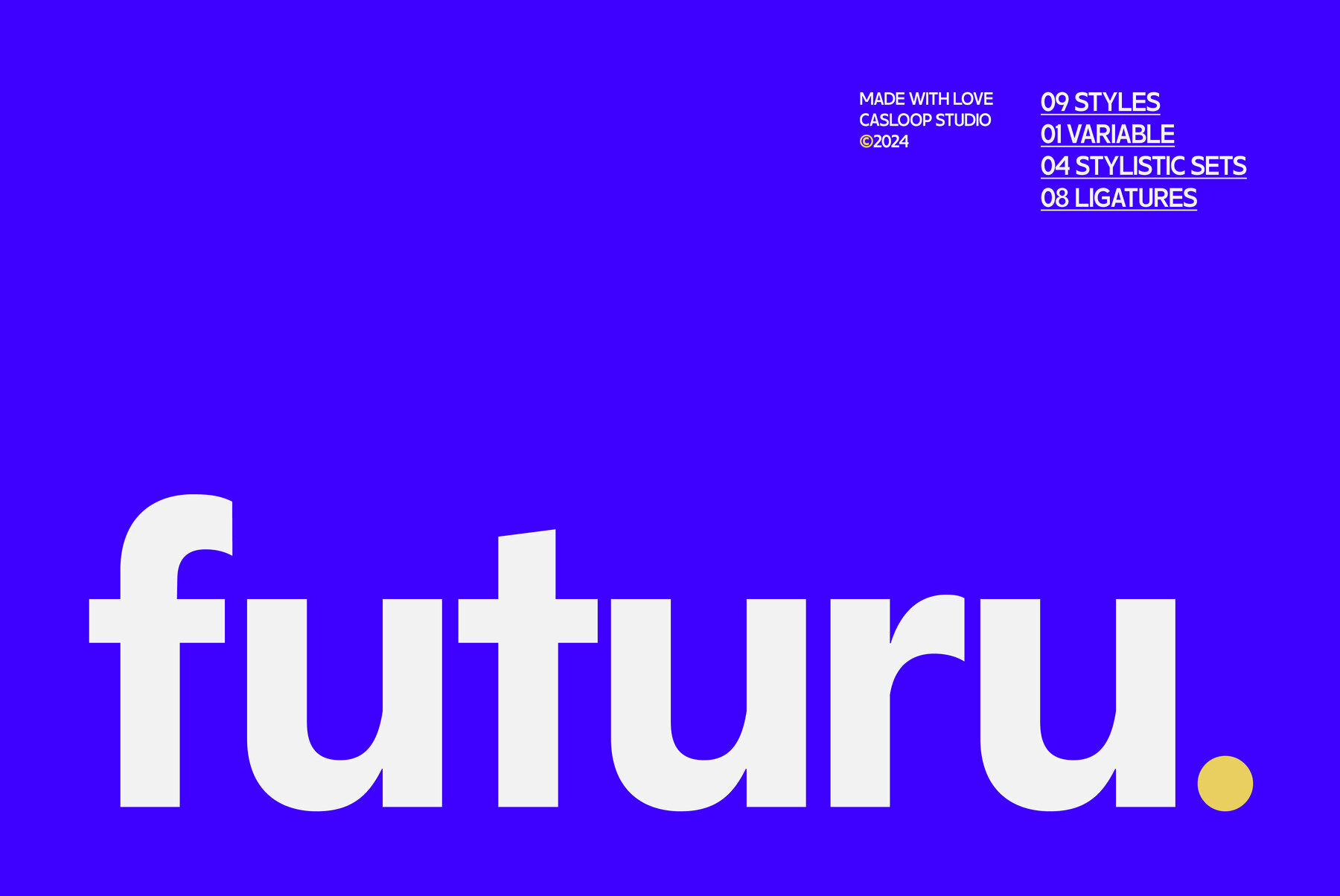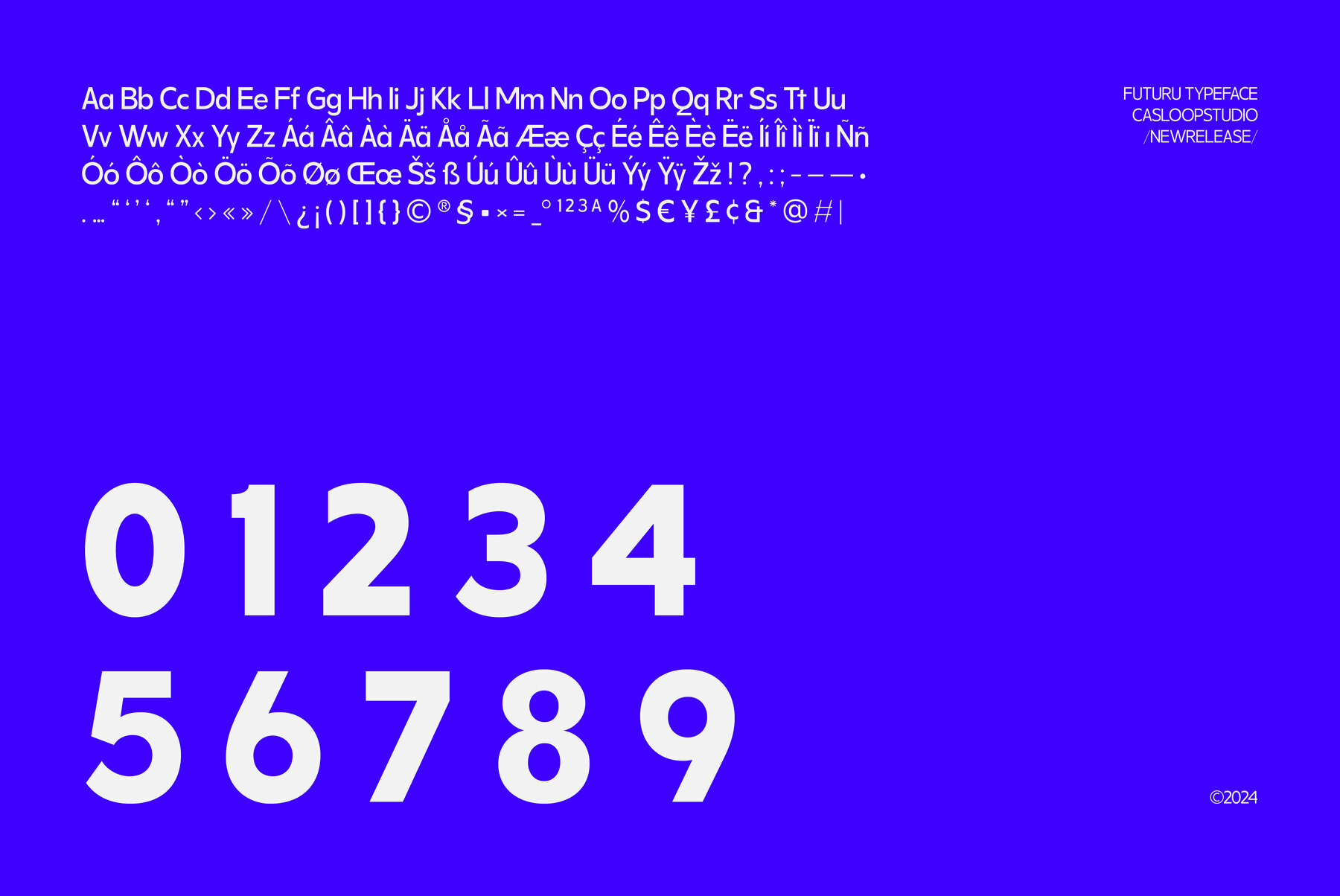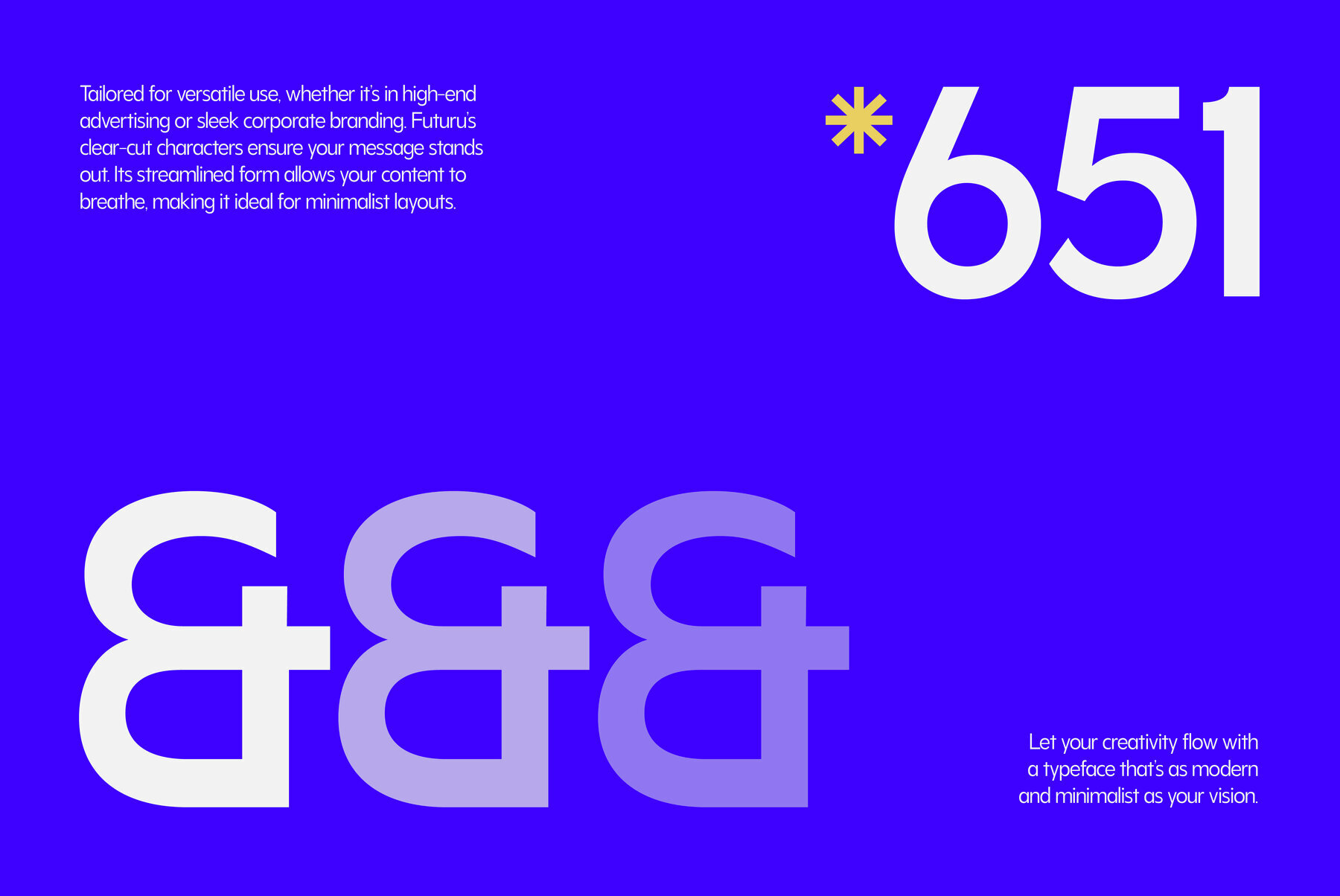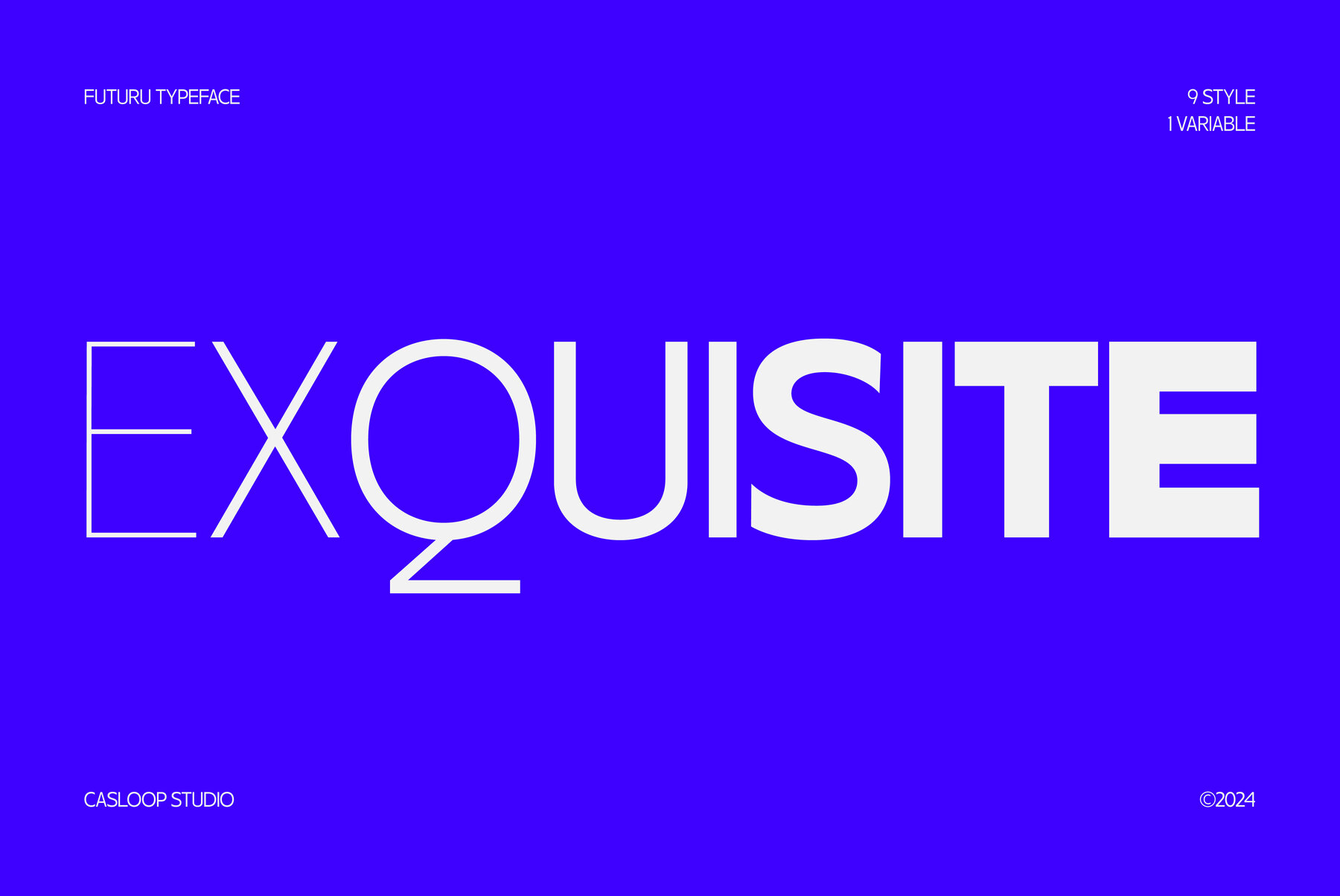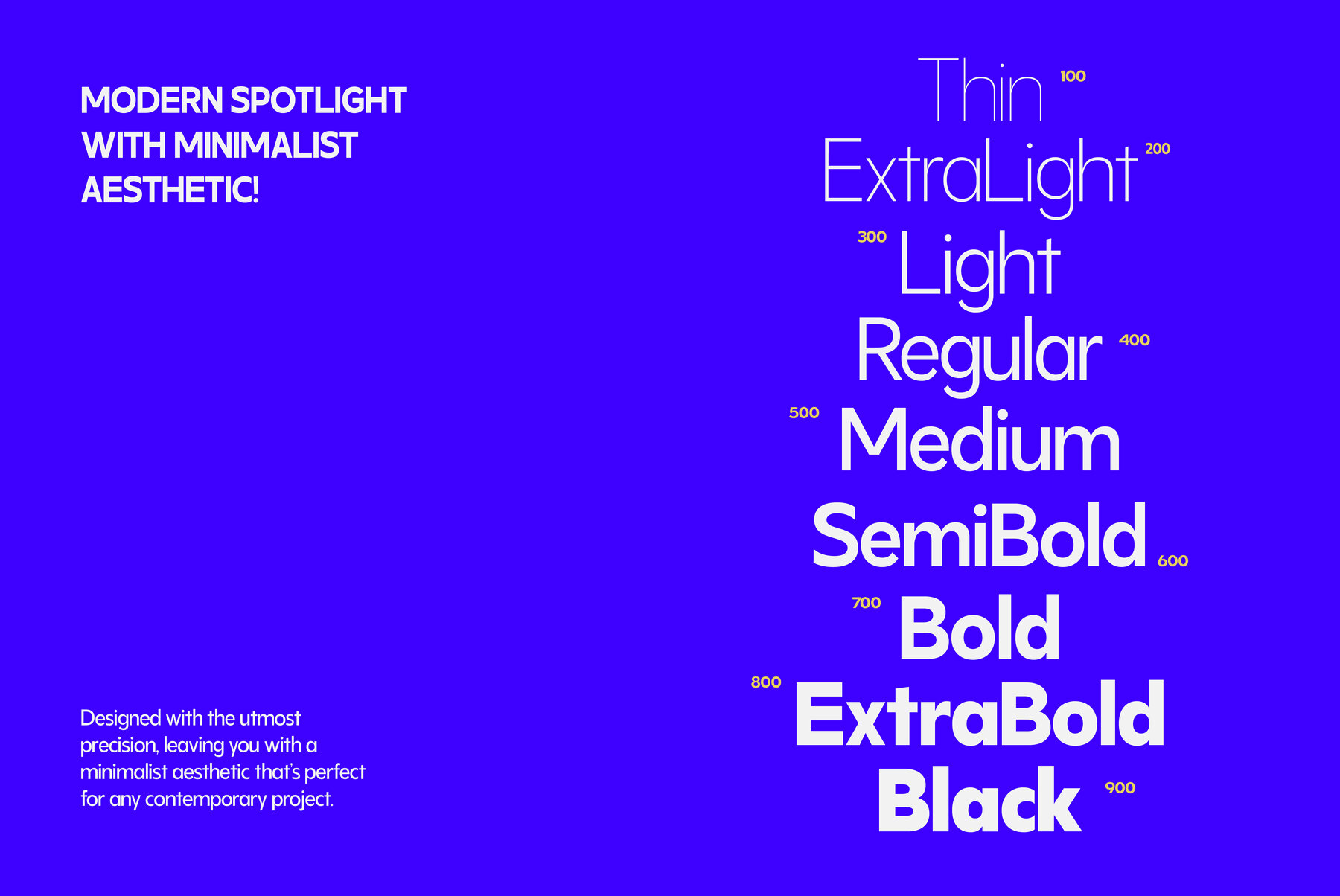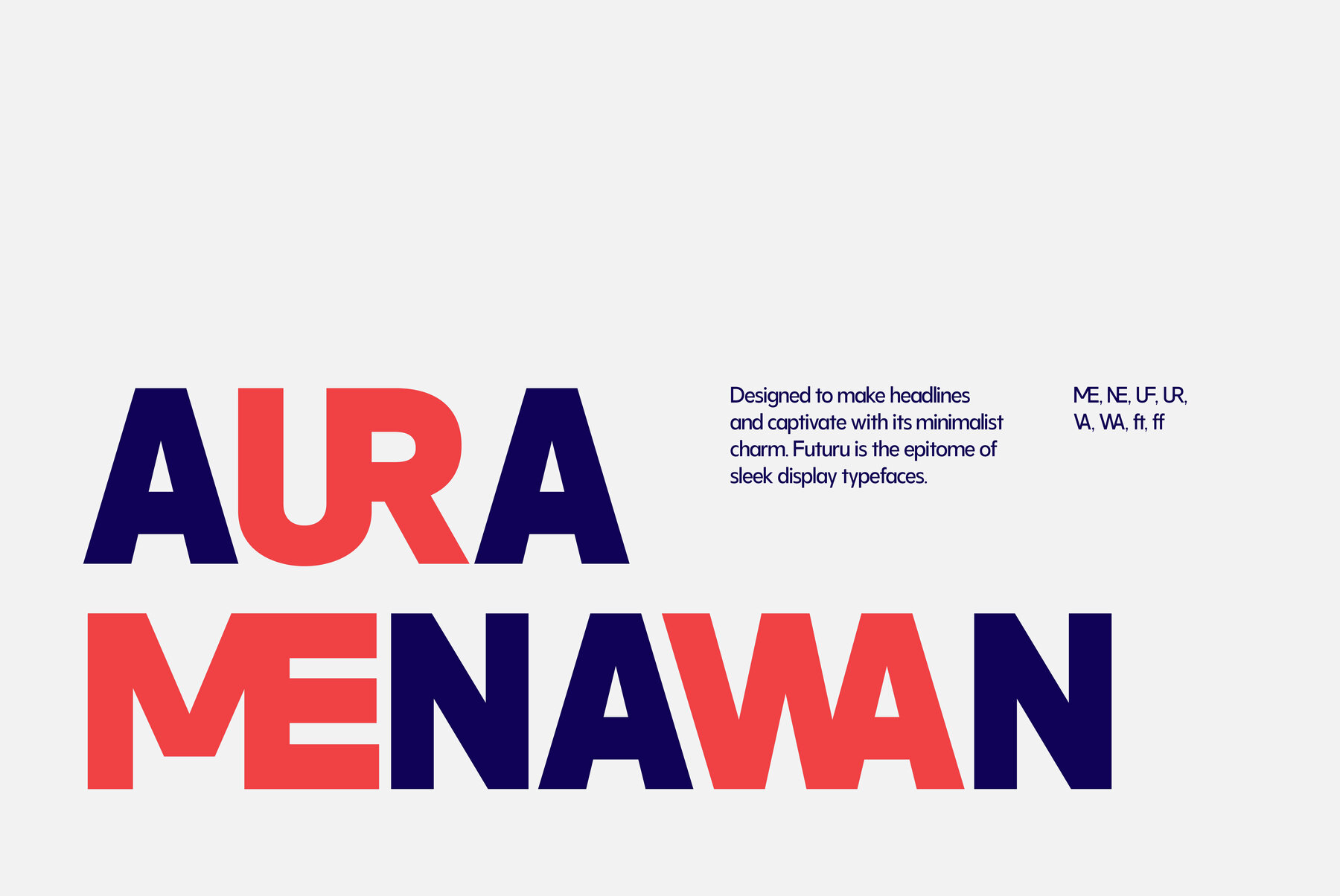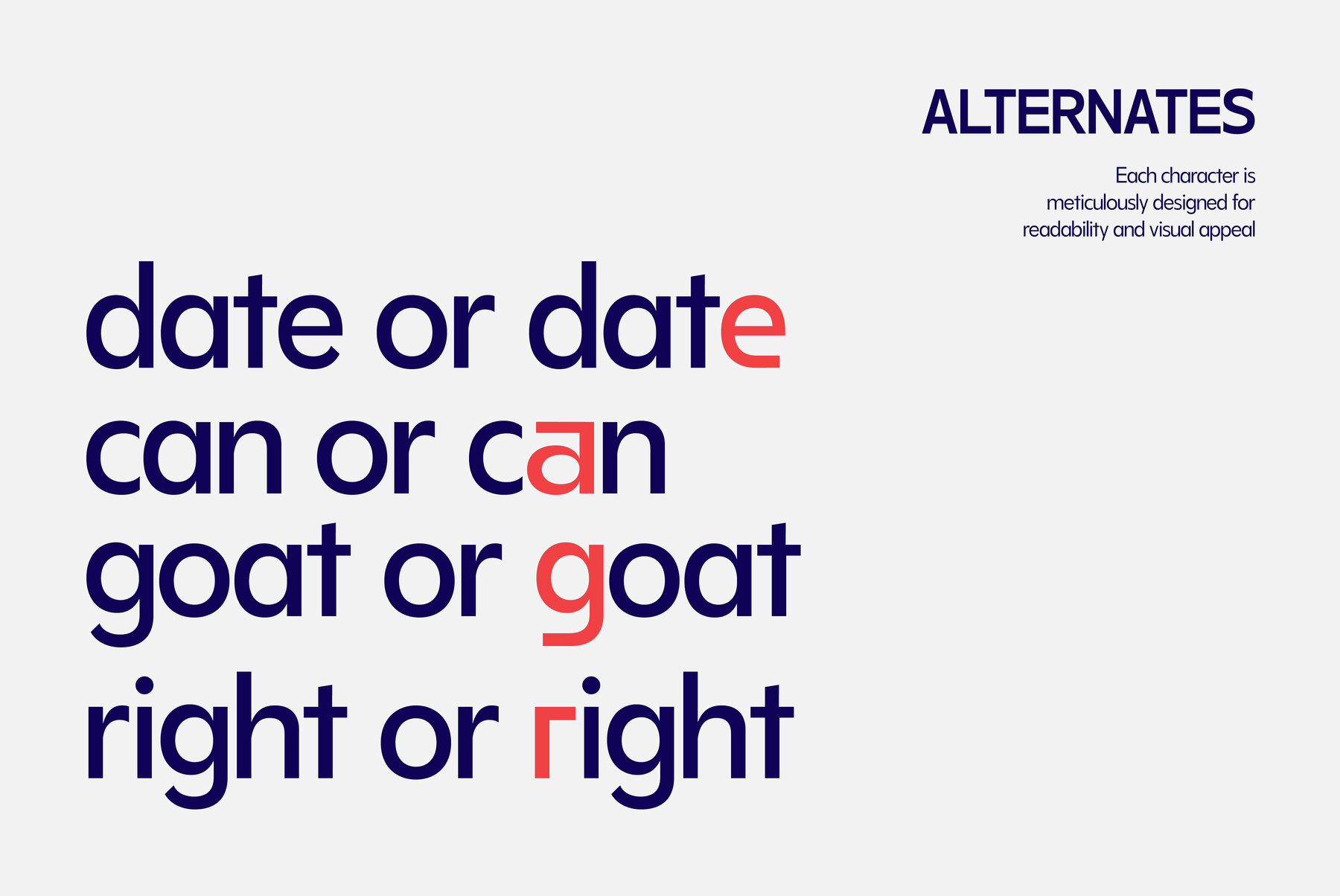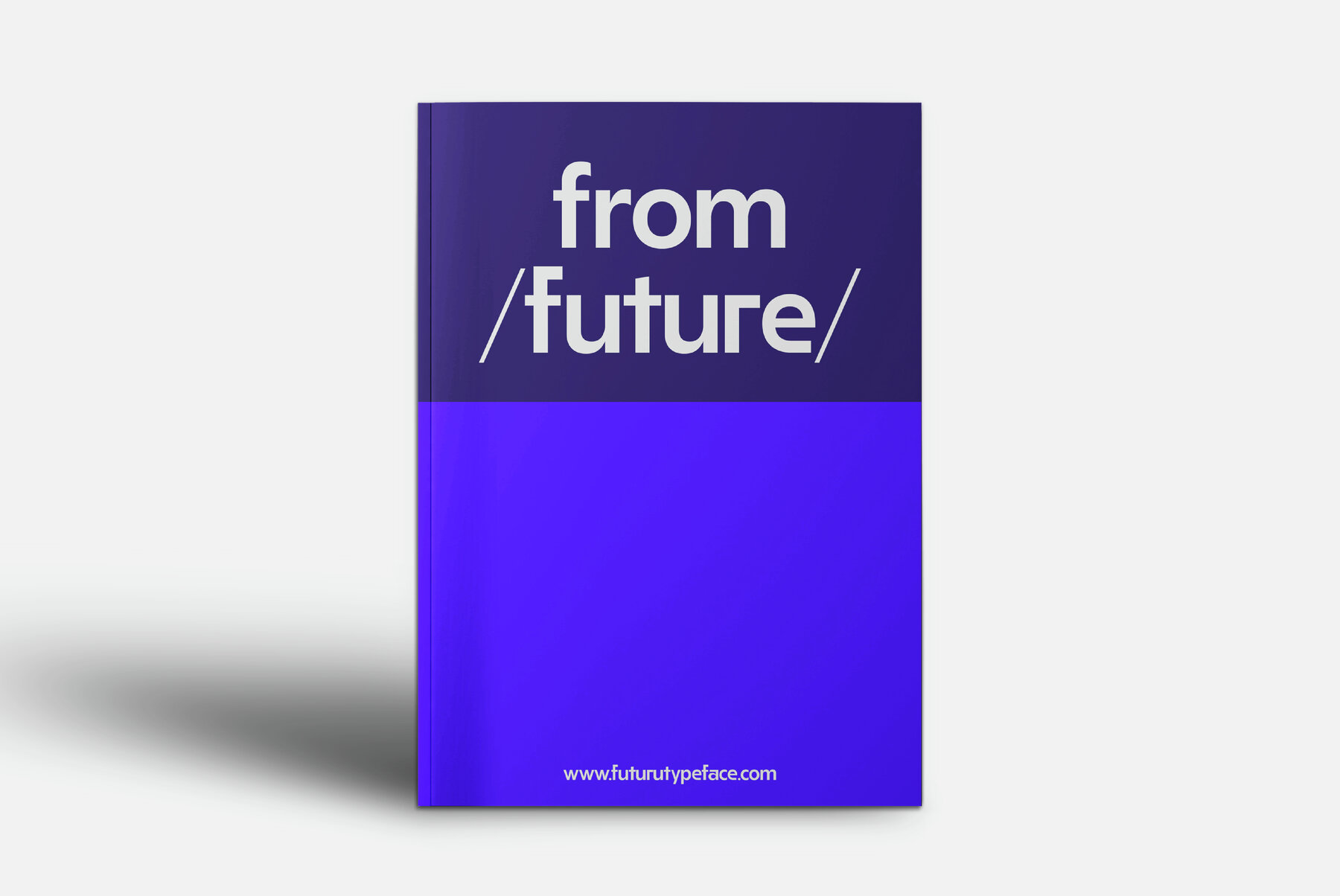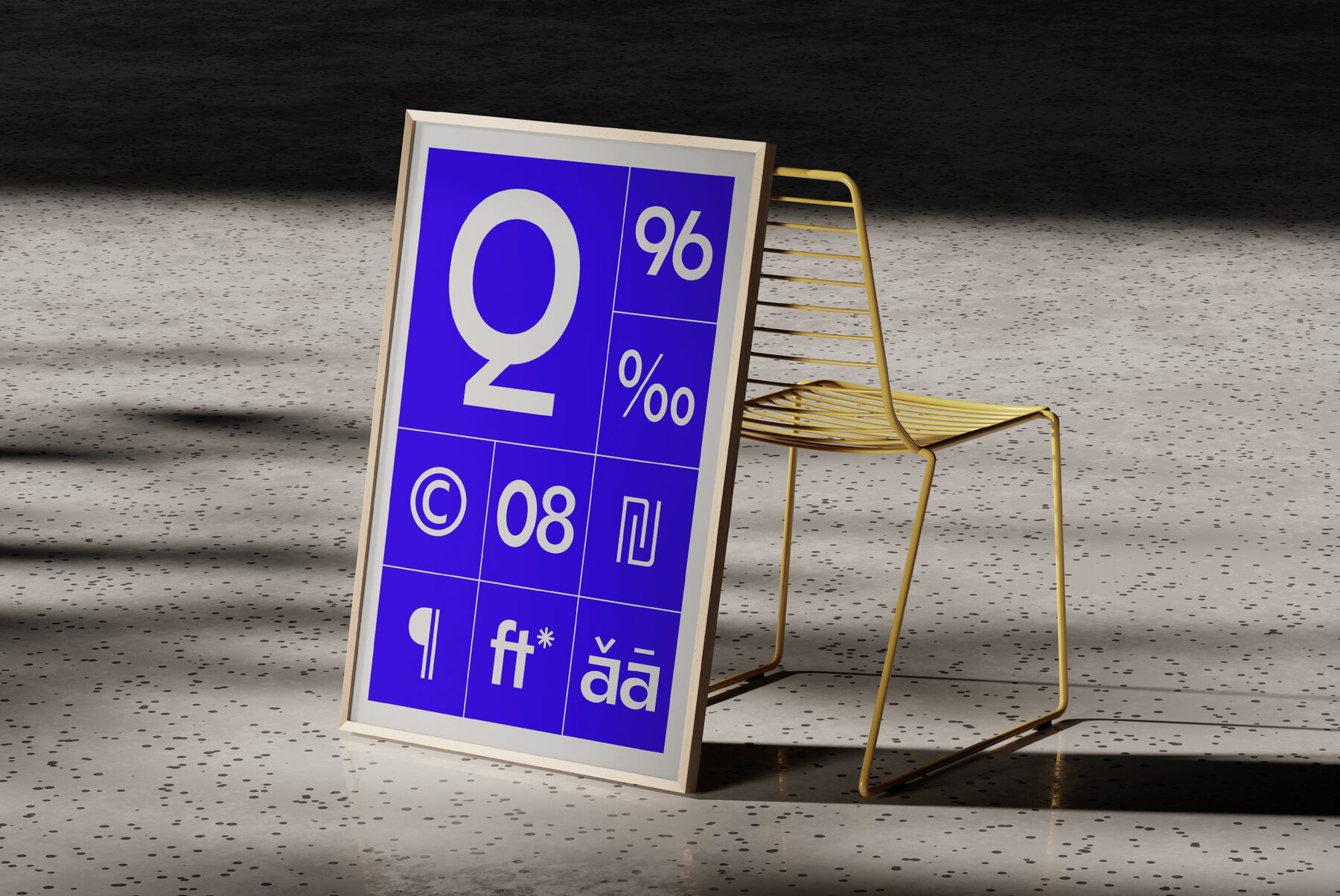
Futuru Font
Futuru emerges as a distinguished geometric sans-serif typeface, seamlessly blending elegance with contemporary design. Influenced by historical neo-grotesque styles, its uppercase characters provide versatility for diverse branding and digital media demands. Futuru's hallmark is its balance of professionalism and minimalist design. Perfect for an array of uses, its sleek structure suits website logos, packaging, dynamic text animations, and motion graphics. The font's large x-height and short descenders enhance readability, while modern, quirky elements introduce originality. Futuru is ideal for corporate branding and educational projects, offering premium quality and dynamic adaptability. Whether designing a digital visual or a minimalist logo, Futuru delivers a stylish, professional impression.Futuru: A Geometric Sans-Serif Typeface